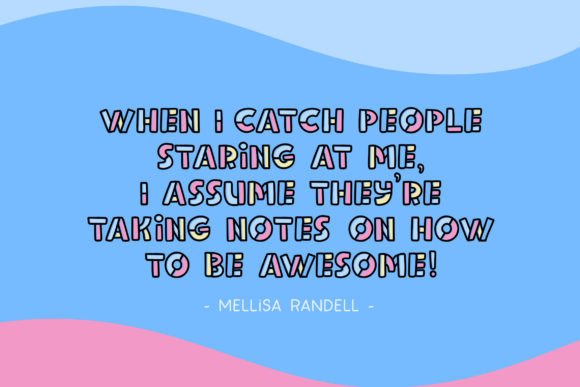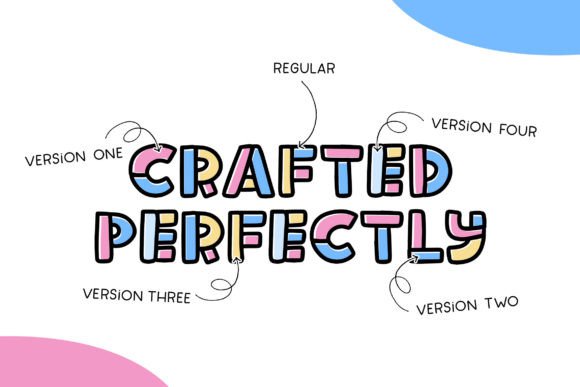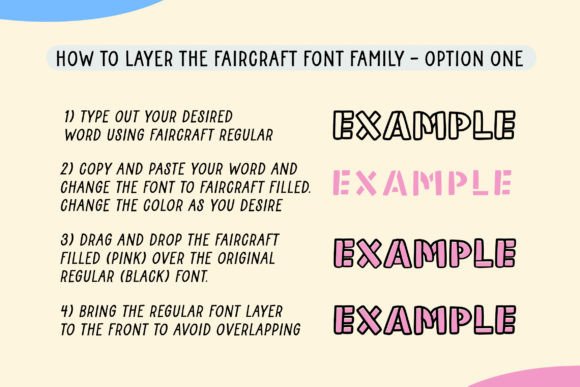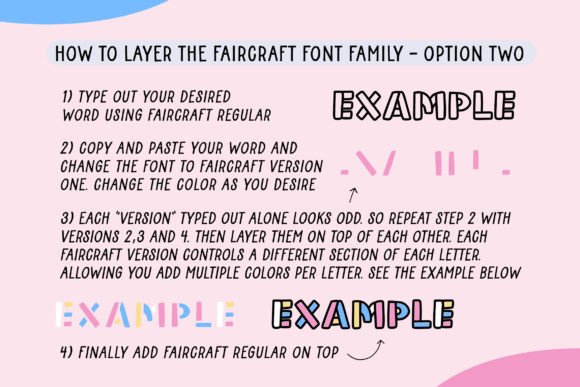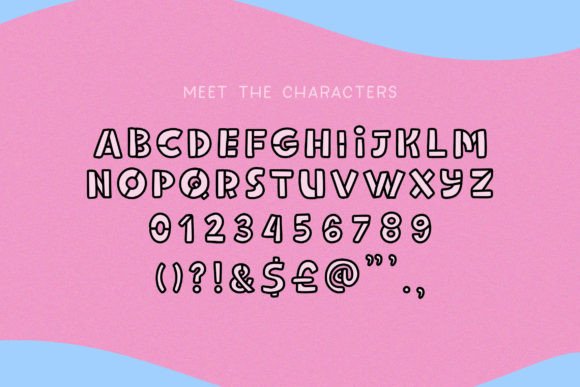
Introducing Faircraft Font: Elevate Your Designs with Bold and Beautiful Typography
In the world of design, typography plays a crucial role in capturing the essence of a message. A font can make or break the visual appeal of a project, and that’s where Faircraft Font comes into play. Faircraft is a bold and beautiful display font that can add tons of personality to your designs. It is suitable for any project that needs to stand out, such as banners, posters, titles, covers, and more.
What Makes Faircraft Font Stand Out?
Faircraft Font boasts a unique and striking design that instantly grabs attention. Its bold and beautiful aesthetic makes it perfect for designers and crafters looking to add a touch of elegance and sophistication to their work. The font’s versatility allows it to be used across various platforms, from digital media to print materials.
Key Features of Faircraft Font
- Bold and Beautiful Design: Faircraft Font features a stunning design that’s sure to make your projects stand out.
- Highly Versatile: The font can be used for a wide range of projects, including banners, posters, titles, covers, and more.
- Elegant and Sophisticated: Faircraft Font adds a touch of elegance and sophistication to any design.
- Easy to Read: Despite its bold design, Faircraft Font remains easy to read, making it perfect for titles and headings.
Use Cases for Faircraft Font
Faircraft Font is suitable for a wide range of projects, including:
- Banners: Add a bold and eye-catching title to your banners with Faircraft Font.
- Posters: Create stunning posters that grab attention with Faircraft Font.
- Titles and Headings: Use Faircraft Font to add a touch of elegance to your titles and headings.
- Covers: Design beautiful book covers, magazine covers, or album covers with Faircraft Font.
- Digital Media: Use Faircraft Font in your digital media, such as social media graphics, YouTube thumbnails, and more.
Why Designers and Crafters Love Faircraft Font
Faircraft Font has become a favorite among designers and crafters due to its unique and versatile design. Here are a few reasons why:
- Unique Design: Faircraft Font offers a fresh and unique design that sets it apart from other fonts.
- High-Quality: Faircraft Font is a high-quality font that’s designed to deliver exceptional results.
Tips for Using Faircraft Font Effectively
To get the most out of Faircraft Font, here are a few tips:
- Use it Sparingly: Faircraft Font is a bold font, so use it sparingly to avoid overwhelming your design.
- Pair it with Other Fonts: Pair Faircraft Font with other fonts to create a unique and visually appealing design.
- Experiment with Colors: Experiment with different colors to find the perfect combination that works with Faircraft Font.
Faircraft Font is a bold and beautiful display font that’s perfect for designers and crafters looking to add a touch of elegance and sophistication to their work. Its versatility, unique design, and ease of use make it a favorite among designers. Whether you’re working on a banner, poster, title, or cover, Faircraft Font is sure to deliver exceptional results. So why wait? Download Faircraft Font today and elevate your designs to the next level!